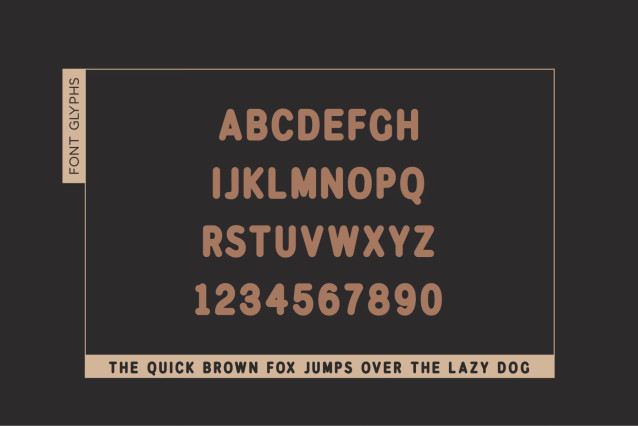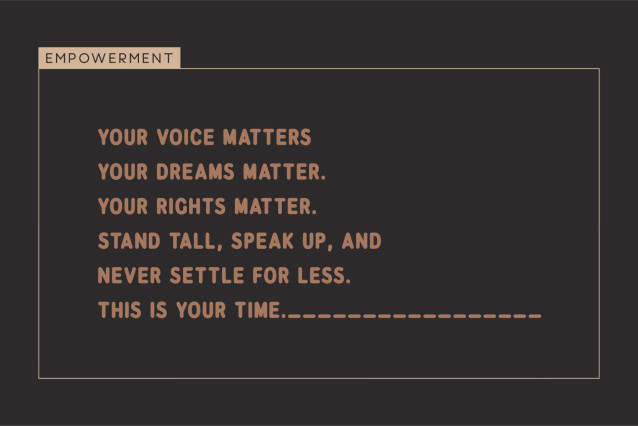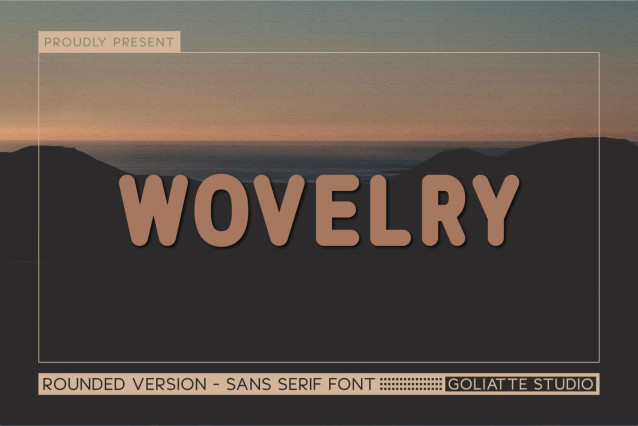
Wovelry Font
WOVELRY – Rounded Sans Serif Font
Bring cozy warmth, organic friendly appeal, and modern balance to your layouts with Wovelry! This rounded sans-serif font features thick monoline stems, smooth pillowy stroke ends, and clean geometric proportions. Its friendly, approachable silhouette softens headlines while maintaining crisp visual structure.
Ideal for coffee shop branding, organic product packaging, eco-friendly lifestyle logos, casual apparel graphics, quote prints, and modern web banners!